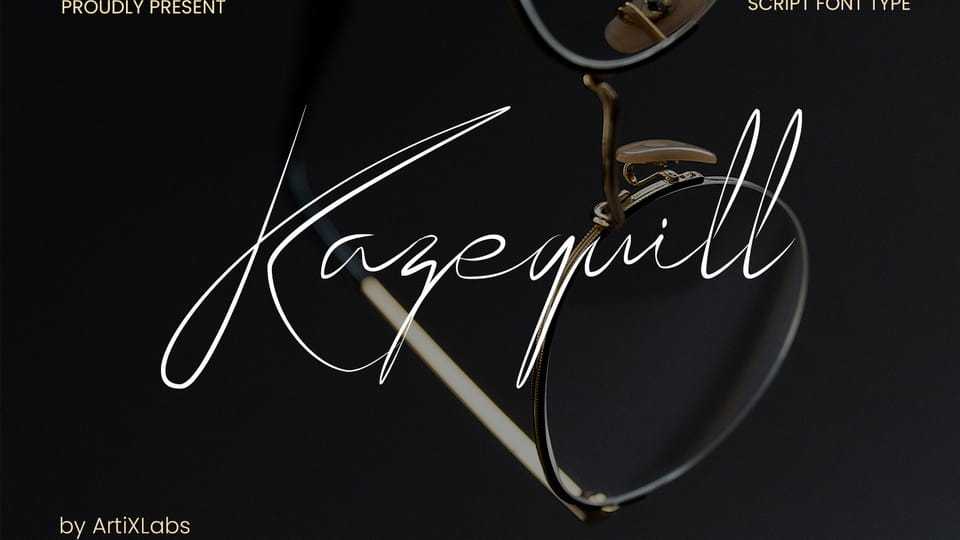
Download Kazequill font, a modern luxury signature typeface with graceful strokes and minimalist elegance. Designed to elevate branding and personal identity designs.
Designer: ArtiXLabs